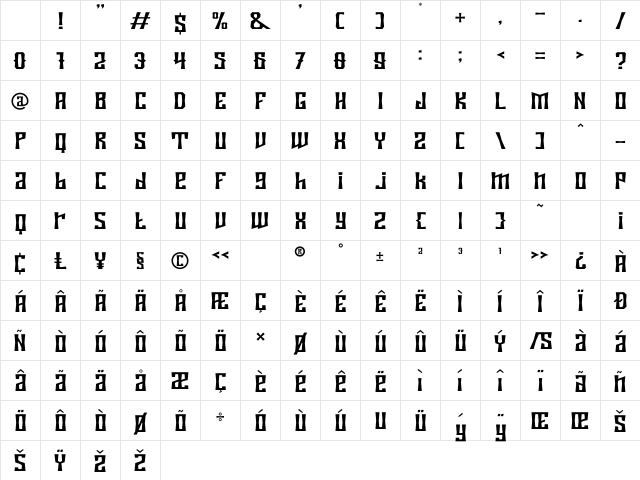
Complete Wooden Bridge Classic glyph index. Displaying only characters natively supported by Wooden Bridge Classic font.
Wooden Bridge echoes the hand-painted signage and woodblock typography of the American frontier, with a warm, rugged personality.
Font Pairing: Combine Wooden Bridge with a simple slab or neutral sans - period-accurate companions reinforce the vintage feel without competing for attention.
Pro Tip: Use Wooden Bridge for short, impactful bursts of text - it shines in poster headlines and product names rather than extended copy.